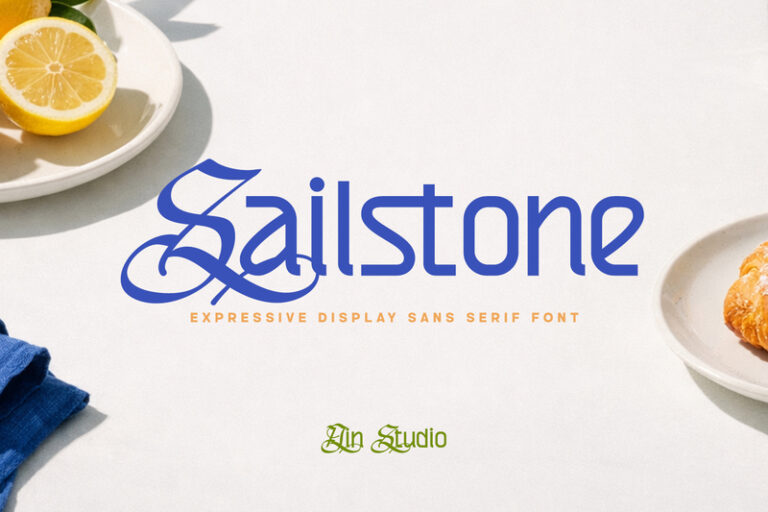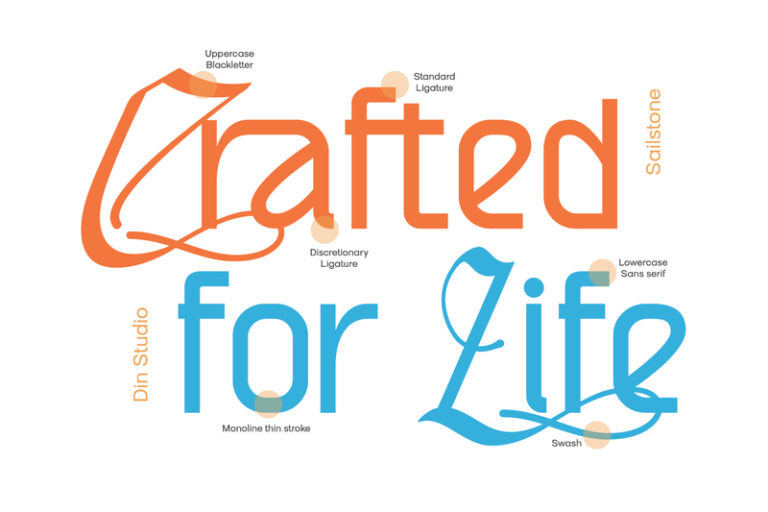
Sailstone-Display Sans Serif Font
Sailstone is an expressive display sans-serif font designed to bring a clean, confident, and contemporary character to your typography. Its expressive personality makes it an excellent choice for designs that need strong visual impact while maintaining a polished and professional appearance. With its balanced weight, Sailstone offers a versatile display presence without feeling overly heavy. The clean letterforms provide a crisp and organized look, while the generous spacing gives each character room to breathe. In addition, enjoy the features here.
- Alternates
- Standard and Discretionary Ligatures
Sailstone fits in logos, quotes, branding, posters, and many more designs. Find out more ways to use this font by taking a look at the font preview.